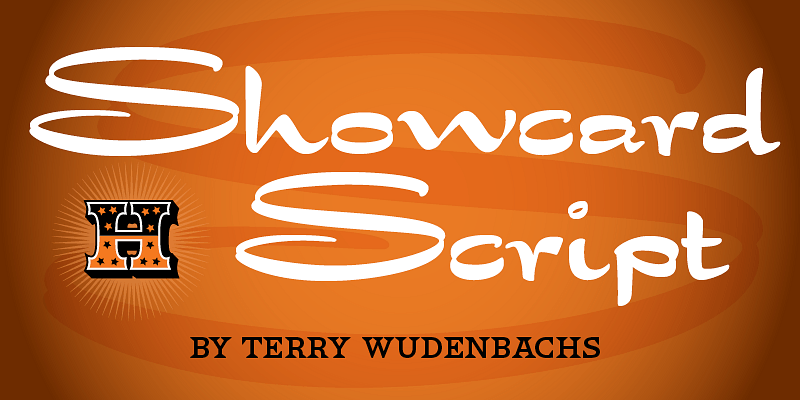
HWT Showcard Script Font Free Download is a lively and expressive script typeface that draws inspiration from vintage showcards and hand-painted signage. With its bold strokes, dramatic flair, and energetic flow, this font is perfect for posters, advertisements, event promotions, and branding that demands attention and personality.
Its handcrafted feel brings a theatrical, retro charm to both print and digital designs. Whether you're using Adobe Illustrator, Photoshop, or Canva, HWT Showcard Script integrates smoothly into your creative workflow and instantly adds impact to headlines or logo designs.